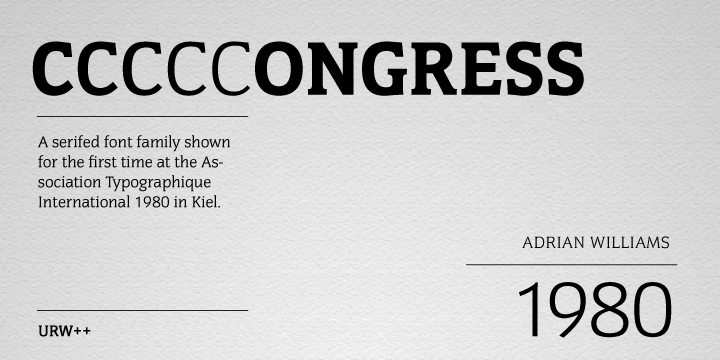
Congress Font is perfect for political campaign materials, government institution branding, legislative document typography, civic organization logos, public policy presentations, democratic foundation graphics, constitutional document design, and official governmental communications. This authoritatively dignified typeface excels in projects requiring democratic gravitas and institutional credibility where political tradition meets contemporary civic engagement.
What makes Congress Font exciting is its powerful embodiment of democratic principles and governmental authority through stately letterforms that convey trustworthiness, stability, and civic responsibility. The font features dignified characters with classical proportions and institutional details that evoke the pillars of democracy and the weight of public office. Its governmental character makes it perfect for political organizations and civic institutions seeking to communicate legitimacy, transparency, and democratic values in today's complex political landscape.
Congress Font family includes multiple weights and institutional variations that enhance its political appeal while providing design flexibility for diverse governmental applications. The family typically offers light, regular, medium, semibold, and bold weights, along with official document styles, governmental symbols, and democratic ornaments that complement political and civic design themes perfectly.
Whether you're developing political campaign identity, creating governmental agency materials, or designing civic engagement campaigns, Congress Font Free Download provides the perfect democratic solution for projects requiring institutional authority and political credibility. This font's governmental gravitas and democratic heritage make it essential for organizations serving the public interest and promoting civic participation.
The constitutionally crafted letterforms and institutional proportions of Congress Font create immediate associations with democratic legitimacy and governmental authority while maintaining excellent readability across all official communications. Its distinctive political personality and civic symbolism make it an invaluable tool for designers working with political, governmental, and civic organizations. Download Congress Font today and strengthen your civic projects with this democratically inspired typeface that perfectly captures the dignity of public service and the authority of democratic institutions.